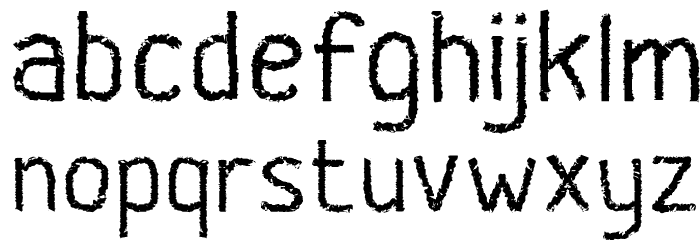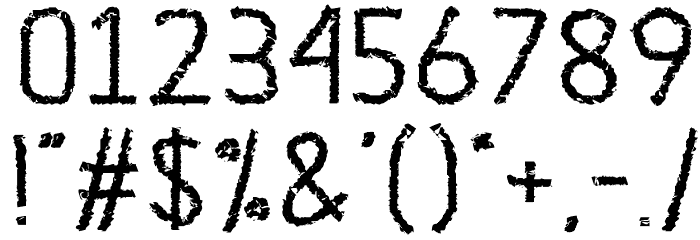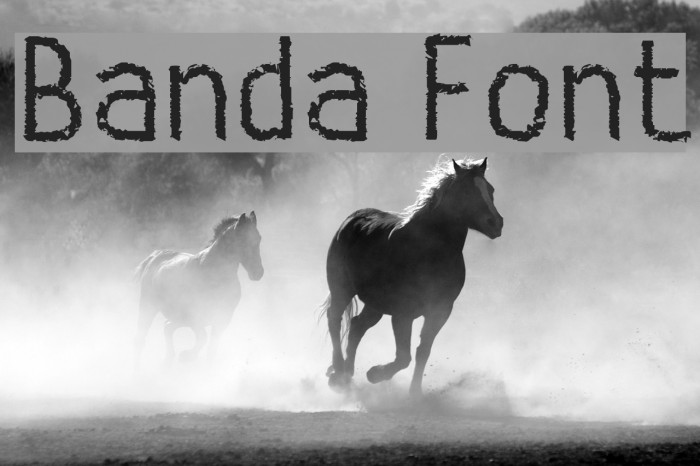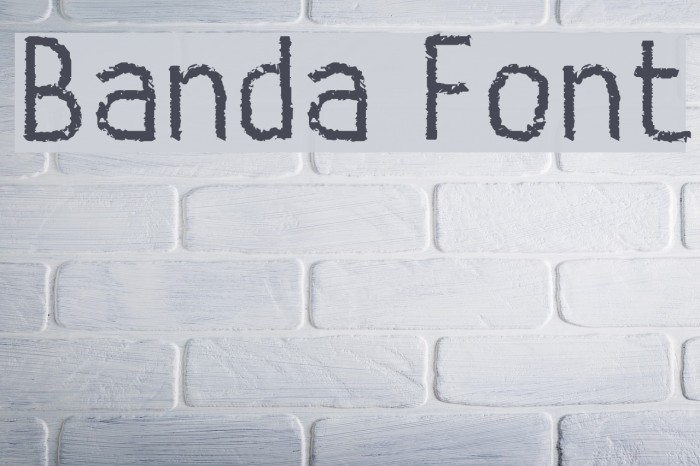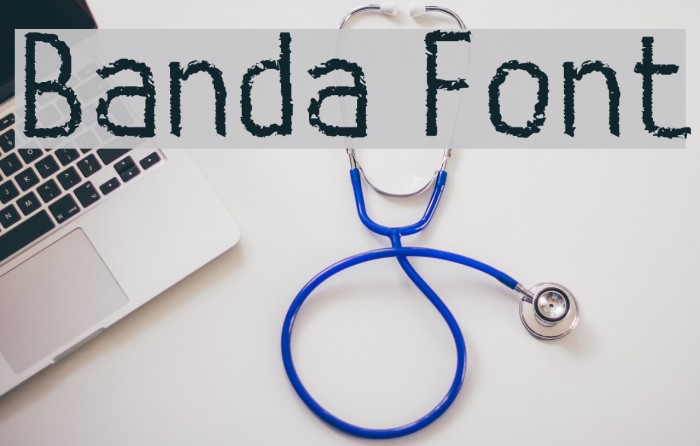
Banda Font
This font features a textured, hand-drawn appearance that mimics the look of chalk or crayon on a rough surface. The characters are slightly irregular, adding a playful and informal touch to the text. The uppercase and lowercase letters maintain a consistent style, with rounded edges and a slightly distressed look that enhances its casual charm. The numbers and special characters follow the same design, ensuring uniformity across all glyphs. This font is ideal for projects that require a personal, handcrafted feel.
A textured, hand-drawn font with a playful, informal style.
- Proposed Projects: Ideal for children's book covers, educational materials, playful branding, and creative posters.